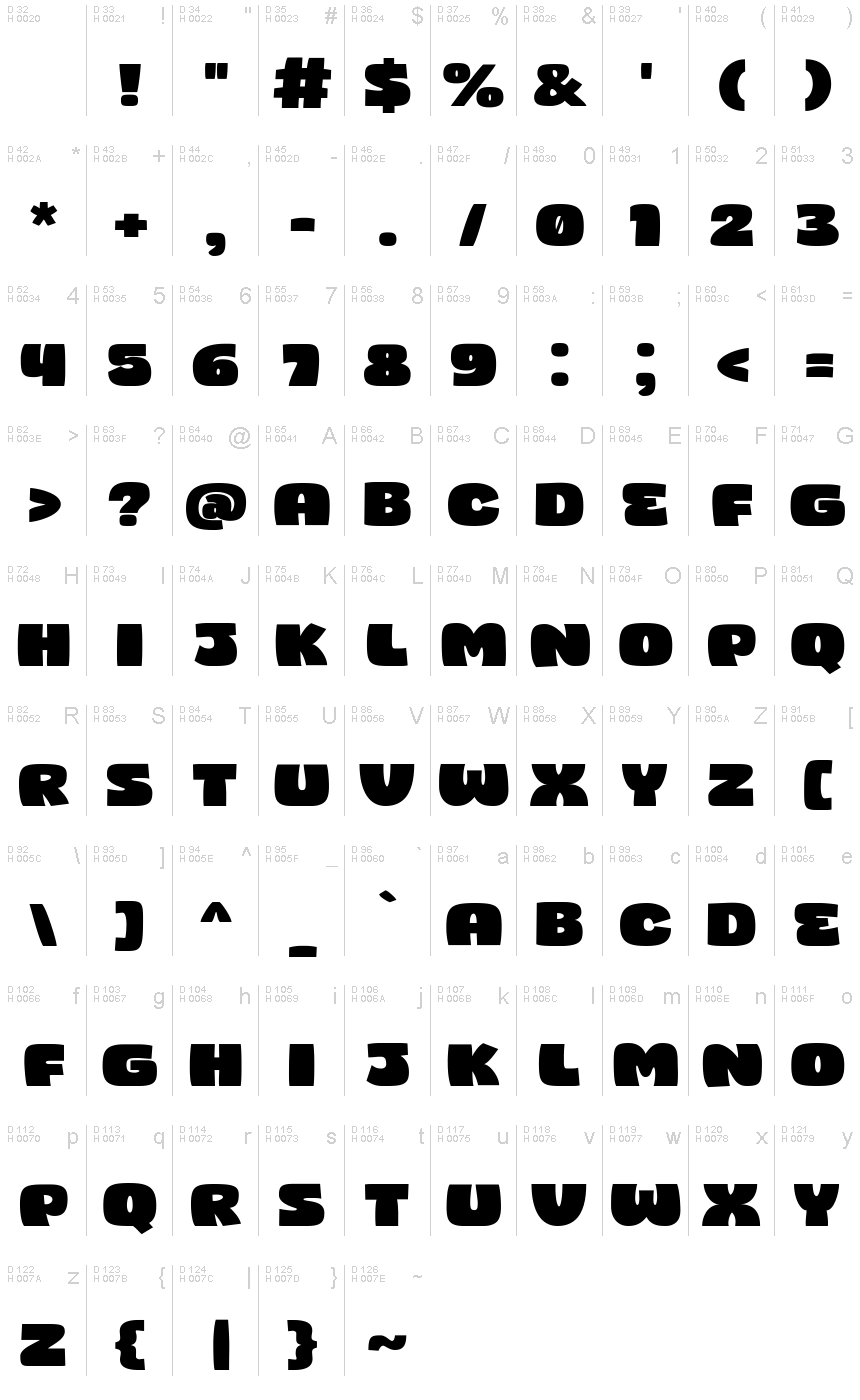
Super Sunshine
Super Sunshine, a bold and exuberant display font crafted by the talented designer fsuarez913, exudes a captivating cartoon-inspired aesthetic. This expansive typeface, with its playful curves and dynamic strokes, emanates a sense of joy and whimsy that instantly captures the viewer's attention. The font's distinctive character and eye-catching design make it an excellent choice for a wide range of applications, from vibrant branding and energetic logo designs to attention-grabbing headlines and playful marketing materials.
Versatile and adaptable, Super Sunshine thrives in contexts where a strong visual impact and a touch of playfulness are desired. Its bold and expressive nature lends itself seamlessly to packaging, product labeling, and any design work that seeks to convey a sense of fun, energy, and youthful appeal. Whether you're crafting a children's book cover, designing an animated title sequence, or creating a dynamic event poster, Super Sunshine's unique personality and visual flair can elevate your project with a captivating and unforgettable charm.